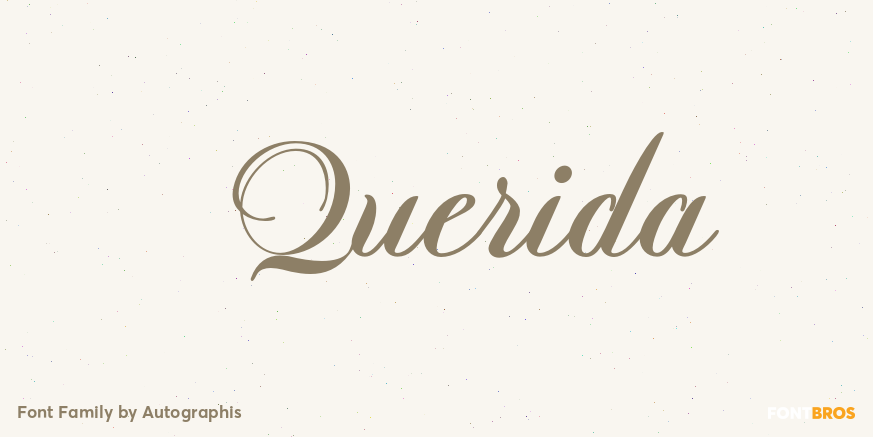
HomeFont BrosScripts: CasualQuerida Scripts: CasualScripts: Formal Querida FacebookXPinterestWhatsApp 1 of 1 About Querida is an elaborate, elegant, constructed script with intertwining swashes and a timeless appearance. It will serve you well for all kind of high class package design challenges.  DOWNLOAD ON FONT BROSThis font is sold and delivered by Font Bros. Font Canyon may earn a commission if you buy through this link. People also explored Falina Sweet Font Valentine Font It is Definitely Possible Font Dogie Font Frida Font Calling Font Breakaway Samantha Font SNOWBY 388 0 TagsQueridaQuerida Font Previous articleGeevesNext articleAffiche LEAVE A REPLY Cancel reply Comment: Please enter your comment! Name:* Please enter your name here Email:* You have entered an incorrect email address! Please enter your email address here Website: Save my name, email, and website in this browser for the next time I comment. Personal Use Free Ernesthuge Personal Use Free Read more about this font Gagalin Personal Use Free Read more about this font Knox Personal Use Free Read more about this font Sweet Beautiful Personal Use Free Read more about this font BLOG How to Cut Any Font on Cricut: Convert a Font to SVG (Free) Turn any font into a clean SVG so it cuts crisp on Cricut - a quick 3-step workflow using a free font-to-SVG tool. Top 7 Google Fonts Alternatives for Faster and Privacy-Friendly Web Design (2025) Elegant Wedding Invitation Fonts – Handwritten & Script Fonts Fonts That Capture the Spirit of New York City